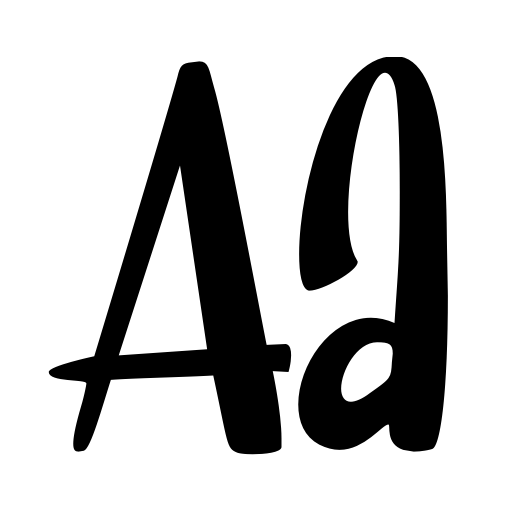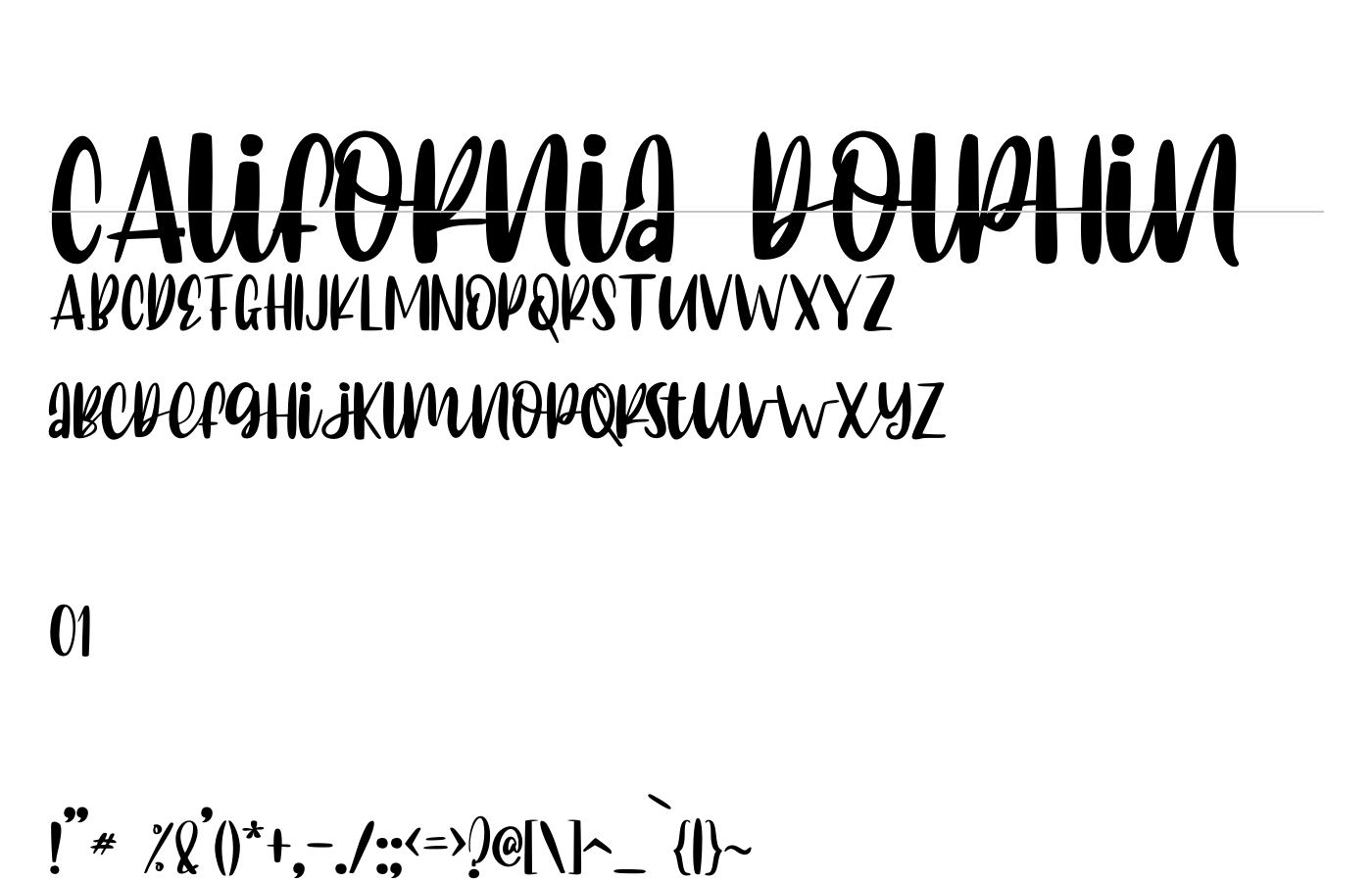
California Dolphin is a playful and lively script font with a hand-drawn feel, featuring tall, narrow letterforms and a mix of thick and thin strokes that give it a dynamic, casual style. Its youthful and friendly vibe makes it perfect for creative branding, invitation design, or any project that wants to communicate fun and approachability with a personal touch.
CAlifornia dolphin Font
About CAlifornia dolphin Font
| Font family | CAlifornia dolphin Font |
| Designer | Sarwo Edhi Prayitno |
| Trademark | Haksen Studio |